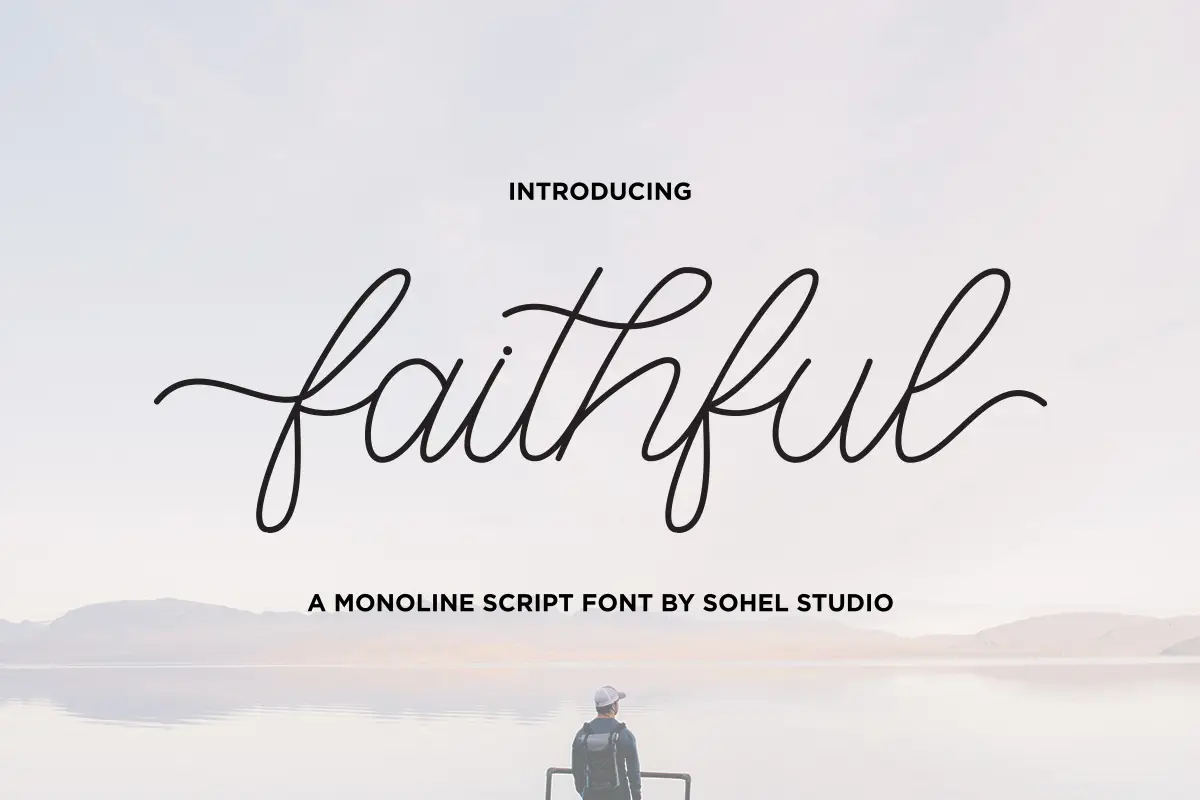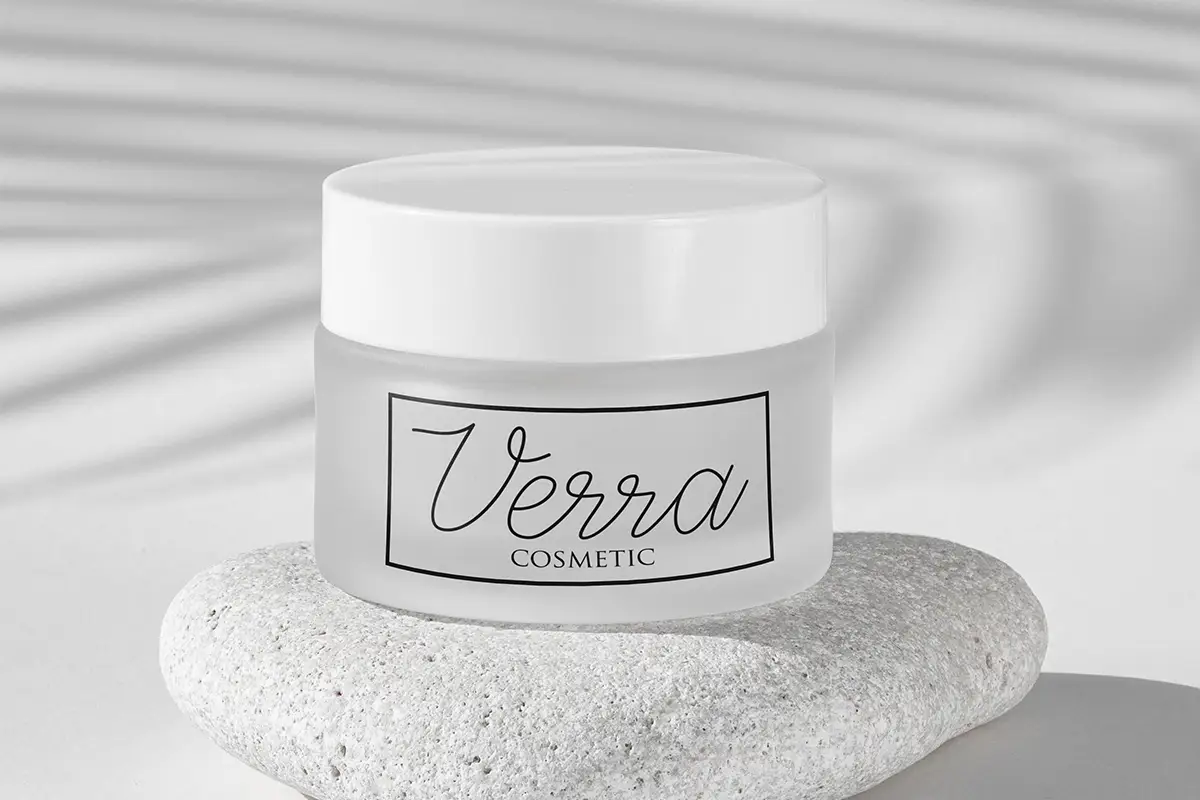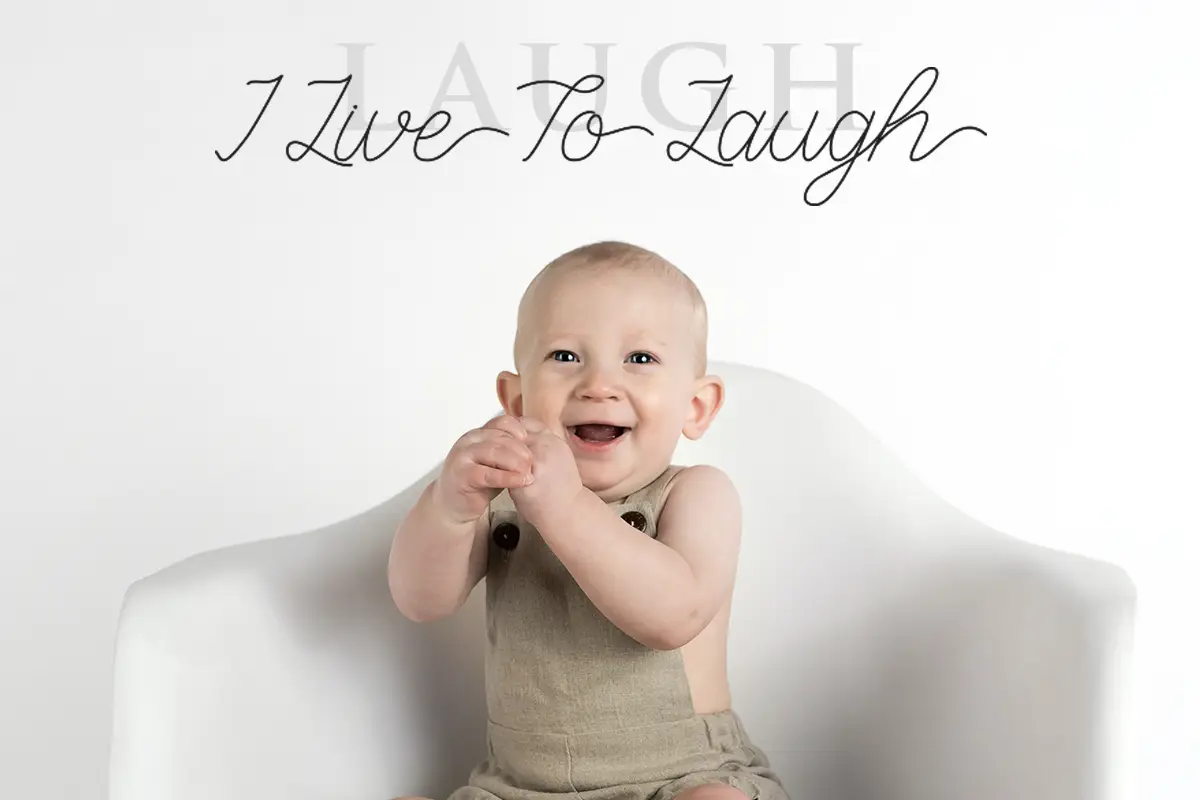
Faithful Script Font
The Faithful Script Font is a beautifully crafted typeface that brings elegance and charm to your designs. With its flowing curves and stylish strokes, this font is perfect for a variety of creative projects.
• Handwritten script style
• Multiple weights available
• Easy to read and versatile
• Ideal for branding and logo design
• Perfect for invitations, greeting cards, and other print materials
• Great for web design and user interfaces